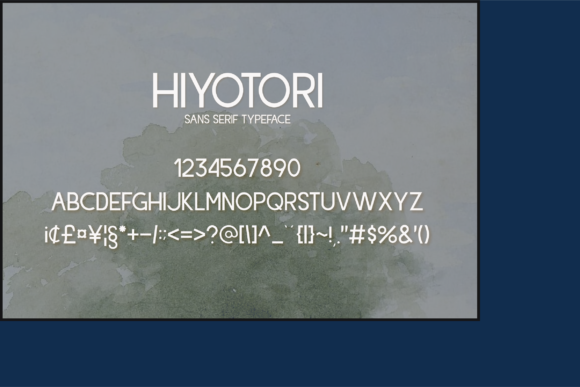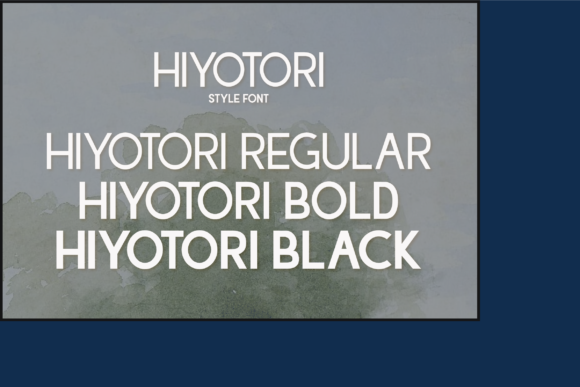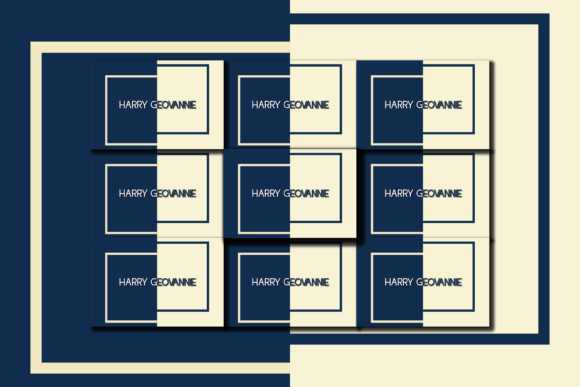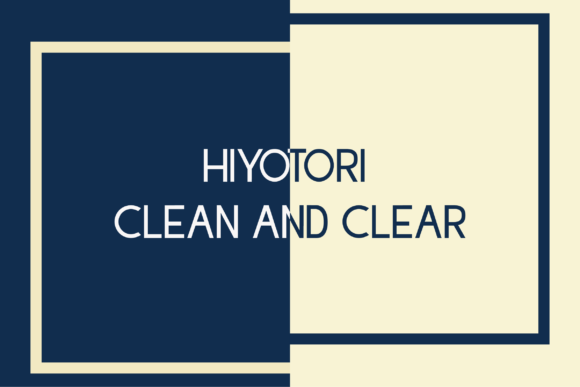
Introduction to Hiyotori Font
As designers, we’ve all been there – stuck on a creative project, desperately searching for the perfect font to elevate our design. It’s the moment when everything comes together, and the right typography can make all the difference. For me, it’s the feeling of excitement and anticipation that comes with discovering a new design resource that’s about to take my project to the next level.
Recently, I stumbled upon the stunning Hiyotori Font, and I’m thrilled to share its beauty with you. This gorgeous and sophisticated sans serif font comes in three different styles, making it a versatile and timeless choice for any creative project. Whether you’re working on a branding project, a website, or a social media campaign, the Hiyotori Font is sure to impress with its high-quality design and transparent background.
Key Features of Hiyotori Font
- Transparent background, making it easy to use in various design contexts
- Available in 5 different font styles, each with its unique characteristics
- Supports a wide range of languages, including English, Japanese, and more
- Perfect for use in graphic design, digital art, and other creative pursuits
Honest Review: Hiyotori Font
I recently had the chance to experiment with the Hiyotori Font, and I must say it’s been a game-changer for my design projects. As a design resource, it’s a high-quality addition to any creative project. One of the standout features of this font is its unique and elegant style, which makes it perfect for designing beautiful typography and graphics.
One of the things that works well with the Hiyotori Font is its transparent background, which makes it easy to customize and integrate into any design. ✨ I’ve been using it for a variety of projects, from logos to social media graphics, and it’s always delivered a professional and polished look.
Here are some of the key features that I love about the Hiyotori Font:
- Unique and elegant style that sets it apart from other fonts
While the Hiyotori Font is a great addition to any design toolkit, I do have a few limitations to note:
- The font may not be suitable for all design projects, particularly those that require a more bold or playful font style
Overall, I’m really impressed with the Hiyotori Font and would highly recommend it to any designer looking for a high-quality, versatile font. With its transparent background and elegant style, it’s a great resource for any creative project. ⚠️ Just be sure to check the compatibility and limitations before using it in a project.
Getting the Most Out of Hiyotori Font
Some tips for getting the most out of Hiyotori Font include experimenting with different font sizes and styles, using the font in combination with other design resources, and taking advantage of the font’s transparent background.
Common Use Cases for Hiyotori Font
Hiyotori Font is perfect for a wide range of creative projects, including logos, business cards, invitations, and more. Its high-quality design and transparent background make it a great choice for any design project.
Q: Can I use the Hiyotori Font with a transparent background?
Yes, the Hiyotori Font is designed to be used with a transparent background. This feature allows you to easily layer the font over images or other design elements, giving you more flexibility in your creative project.